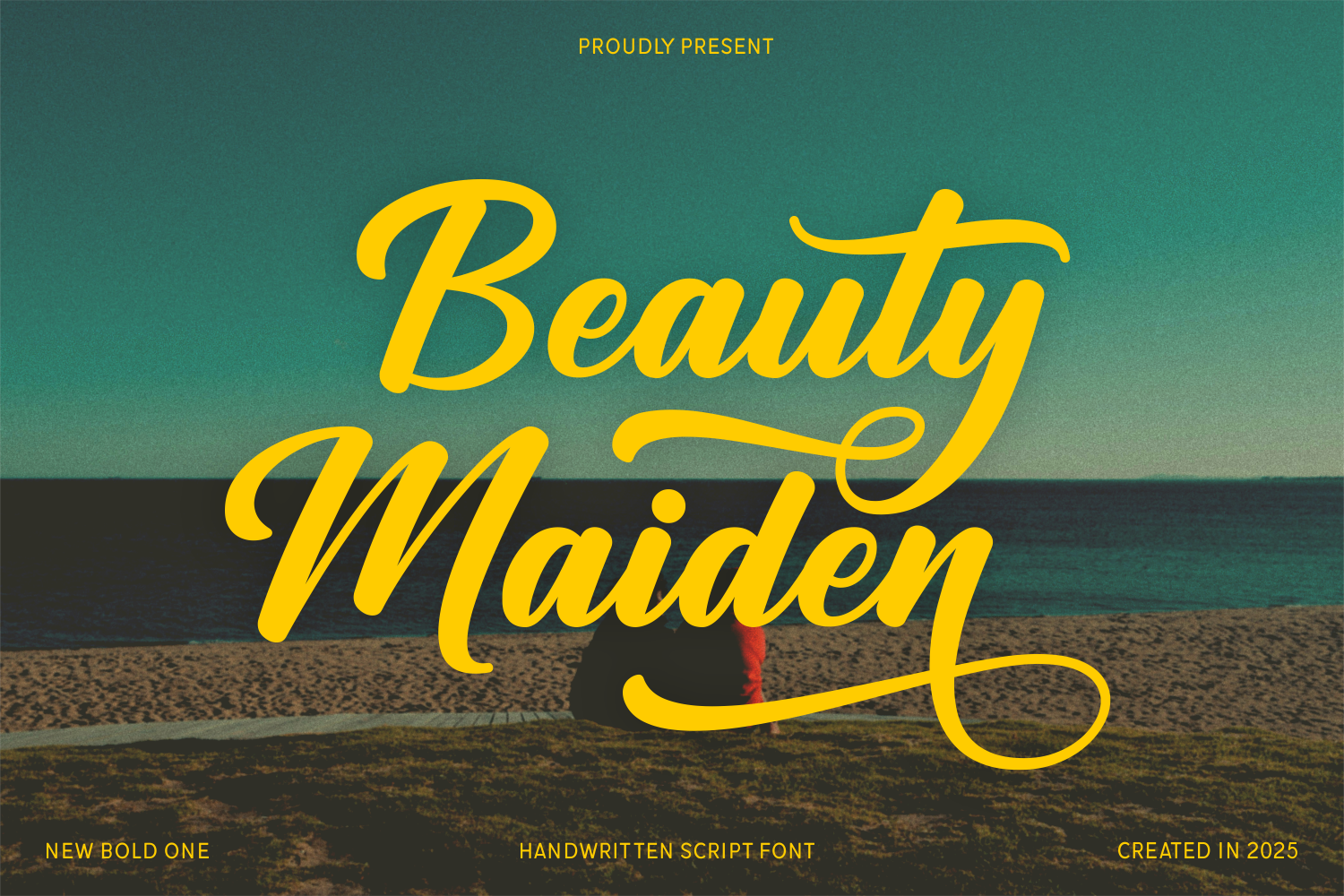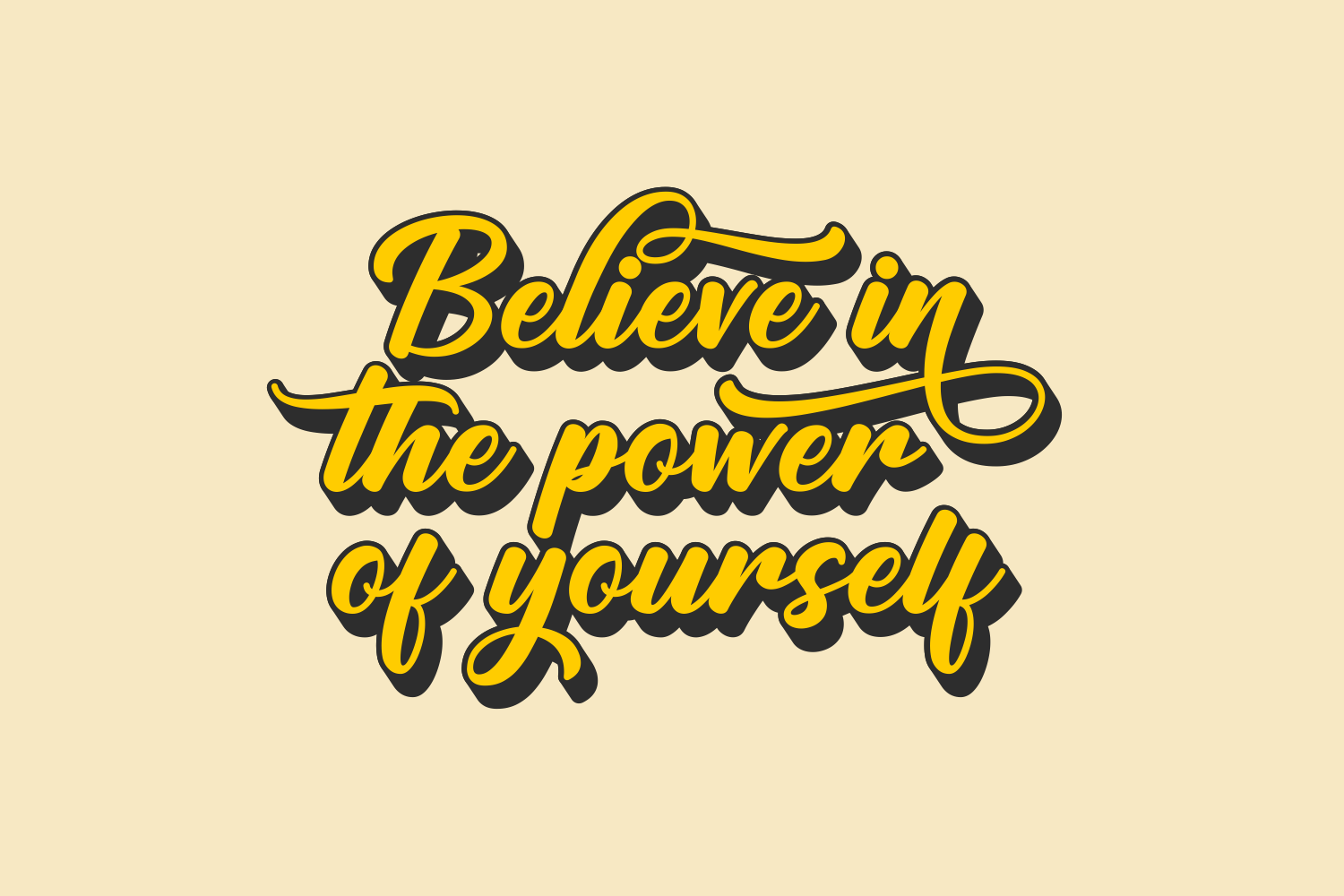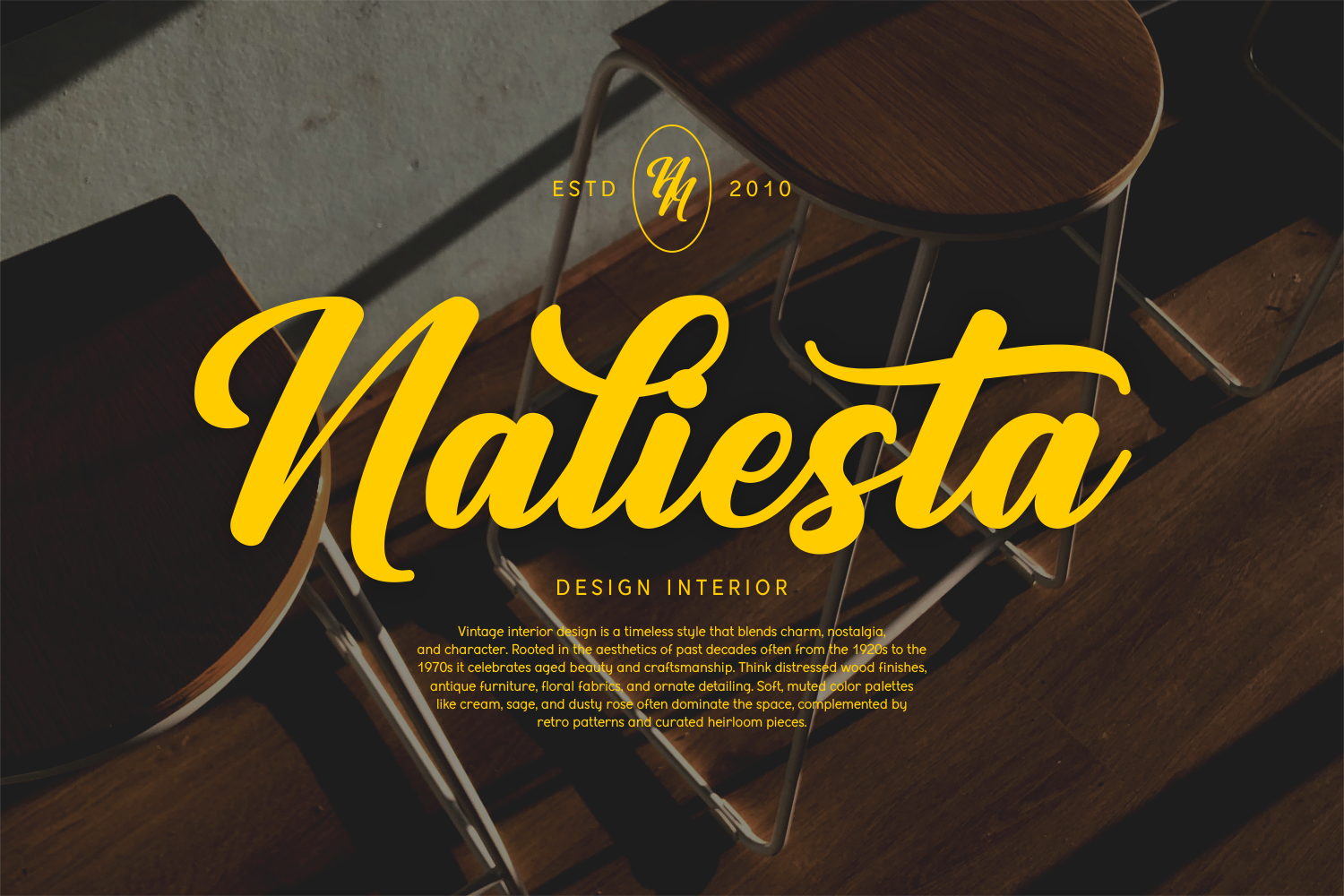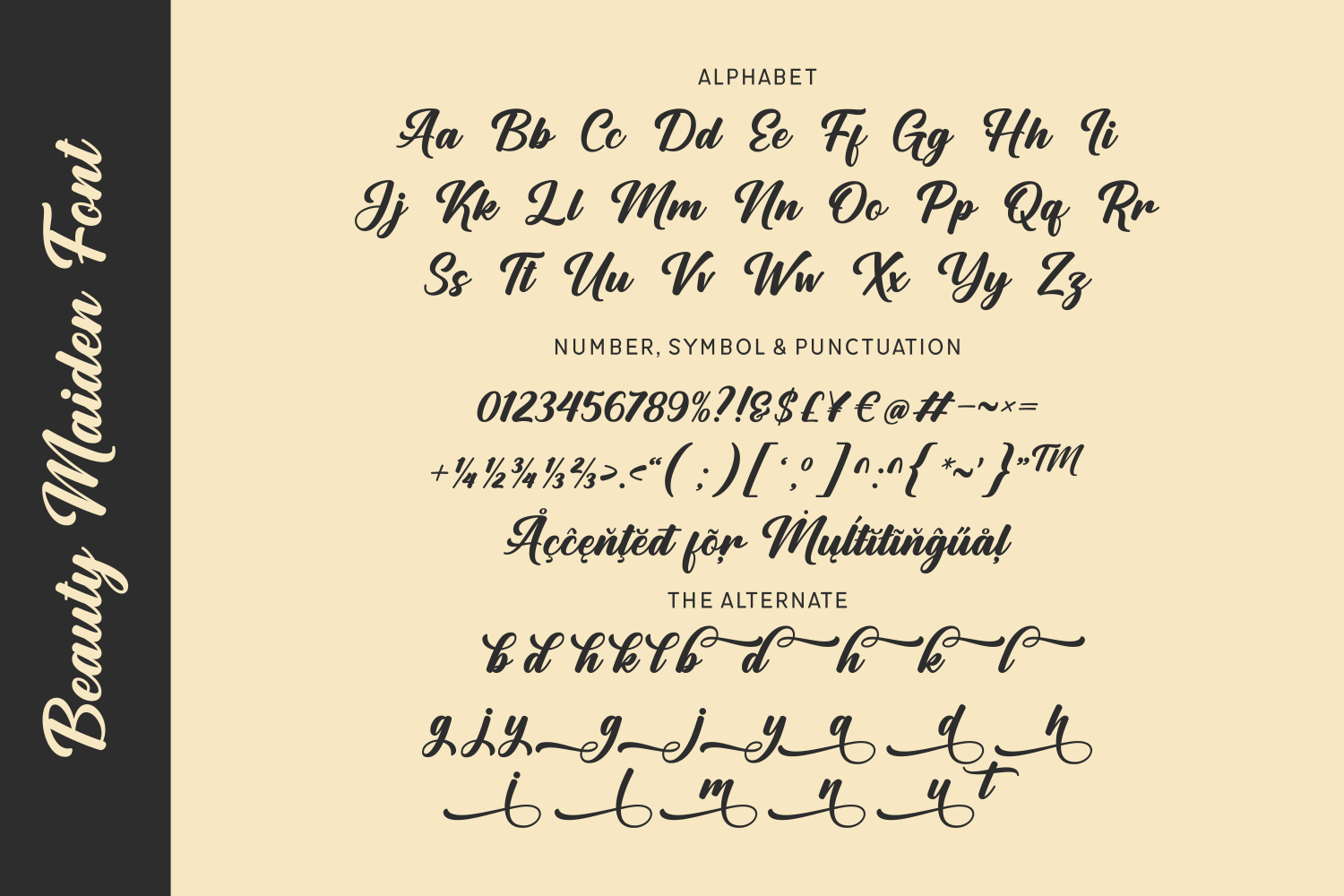
Beauty Maiden
Beauty Maiden is a bold and elegant handwritten script font that exudes confidence and charm. With its sweeping curves and stylish swashes, it’s the perfect choice for branding, social media graphics, packaging, or romantic invitations. Its strong yet graceful presence captures attention effortlessly.